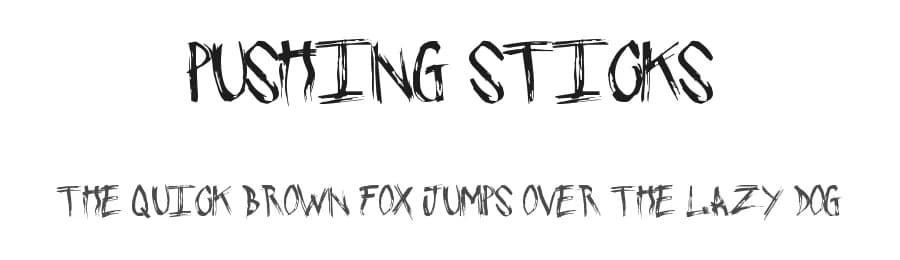
About Pushing Sticks Font
Pushing Sticks Specifications
| Font Family | PushingSticks |
| Full Name | PushingSticks |
| Version | 1.00 November 18, 2015, initial release |
| PostScript Name | PushingSticks |
| Designer | Max Infeld Xerographer Fonts |
Pushing Sticks supports 89 languages.
Pushing Sticks Font is a script font that shines as a display or heading face. Pair it with a clean sans-serif or serif font for body text β the contrast creates a clear hierarchy while the two styles stay balanced and easy to read.
Pushing Sticks Font